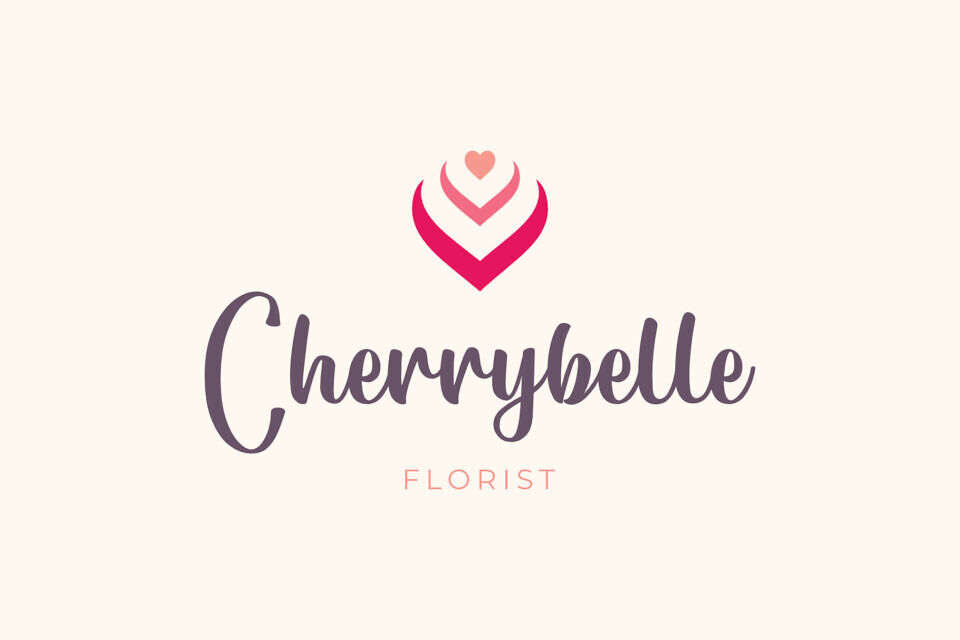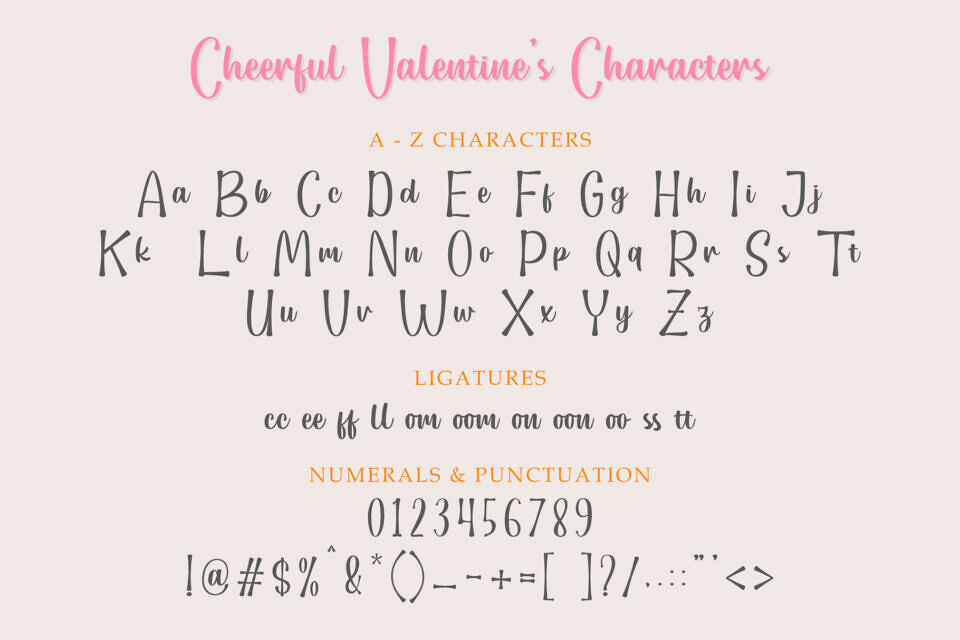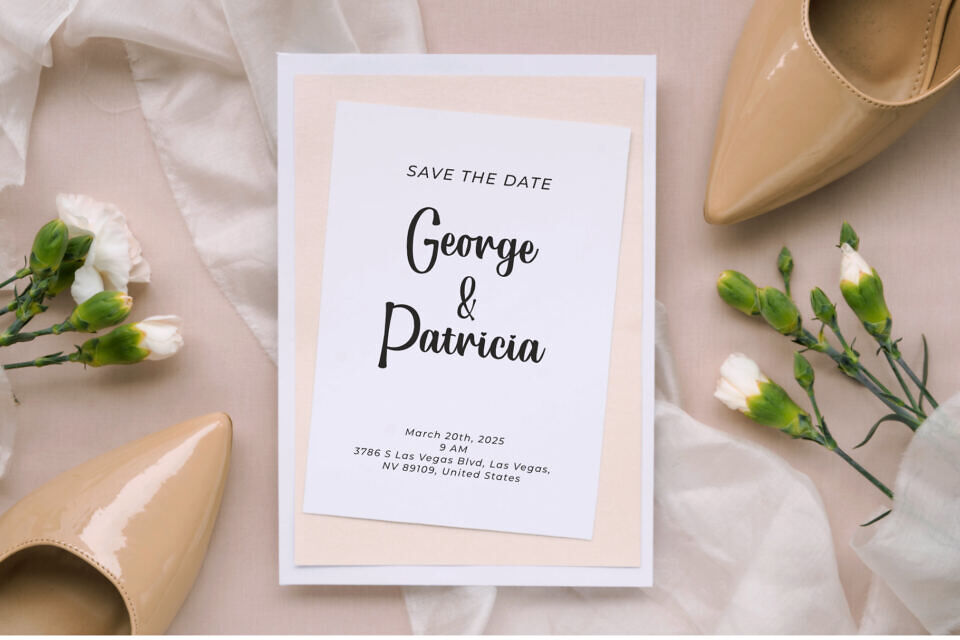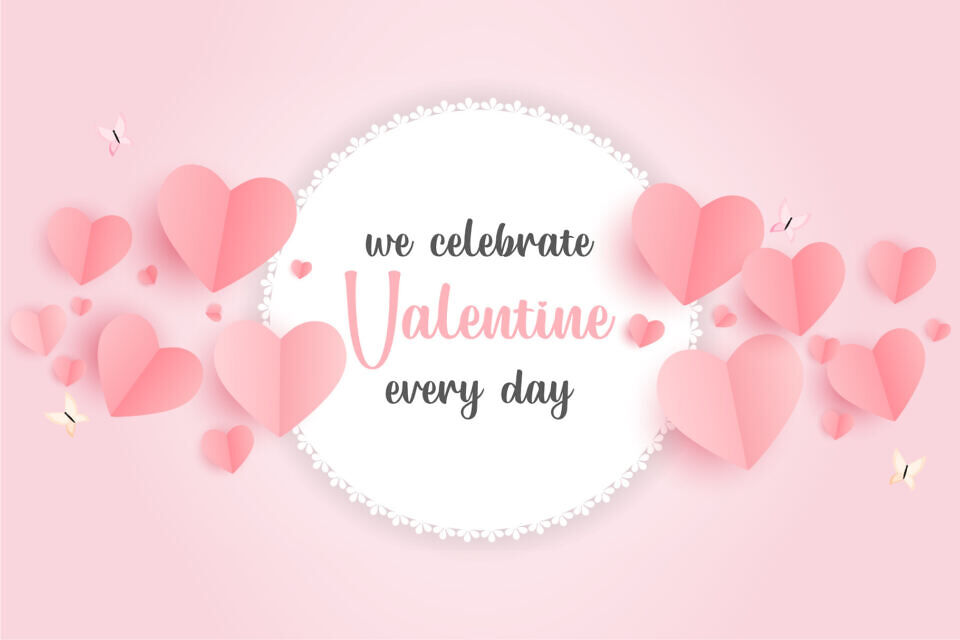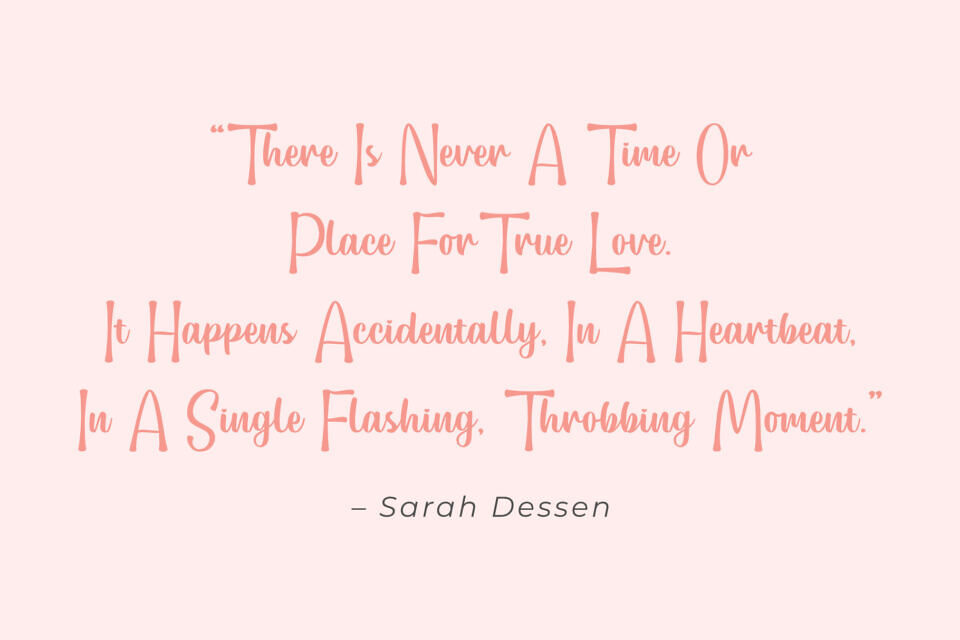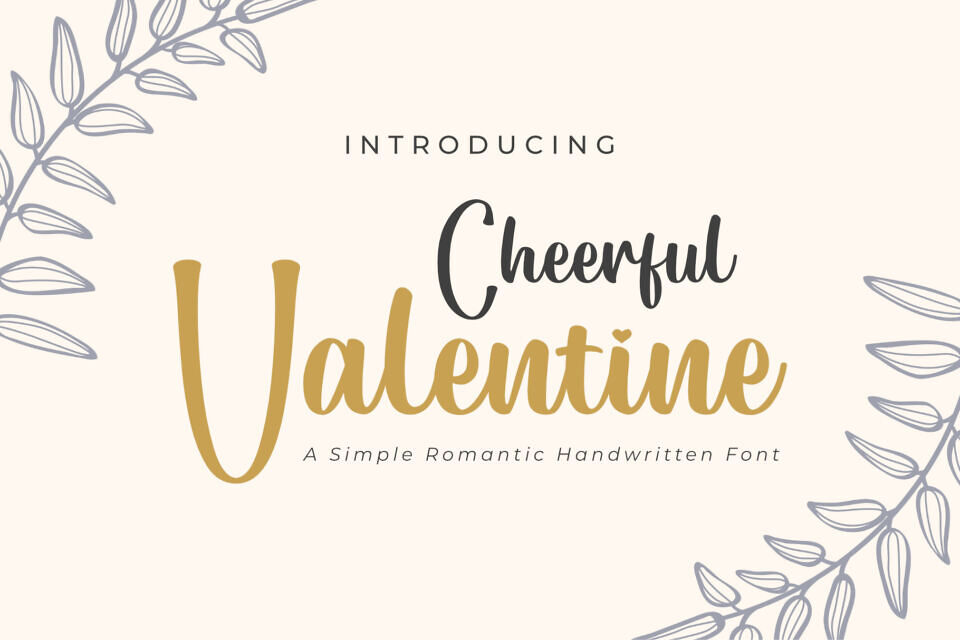
Cheerful Valentine Font
Cheerful Valentine is a simple and romantic handwritten font that will add a touch of love to your wedding design project. This font features smooth and natural strokes, cute hearts, and various ligatures to make your typography more expressive.
Whether you need to create invitations, save the dates, menus, or thank you cards, Cheerful Valentine will make your designs look adorable and heartfelt.
Designed by: Madatype Studio